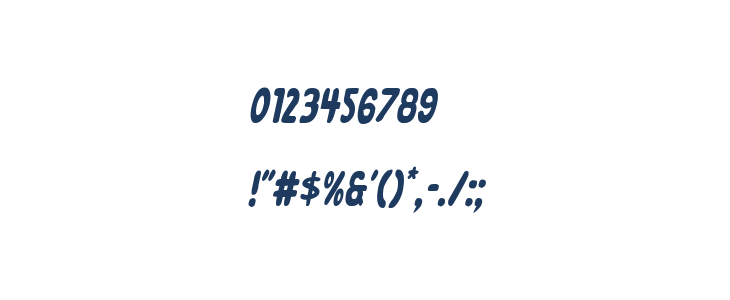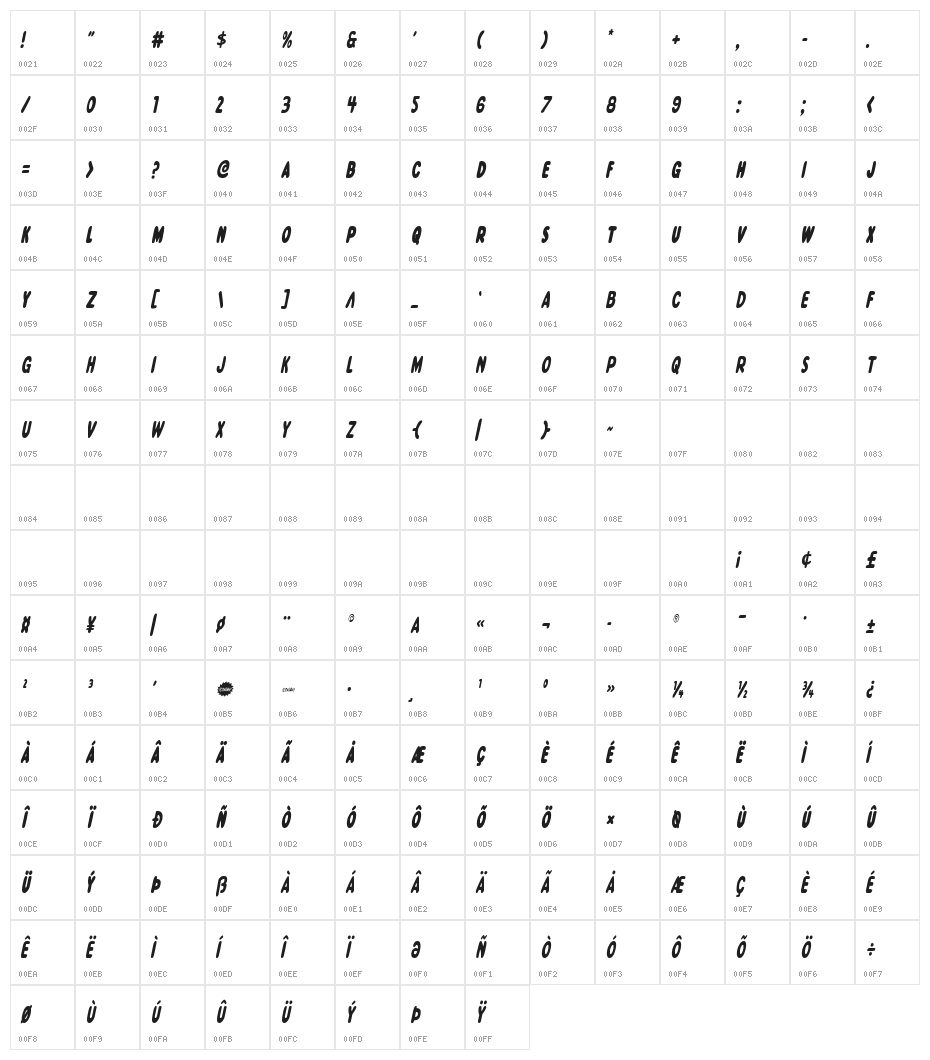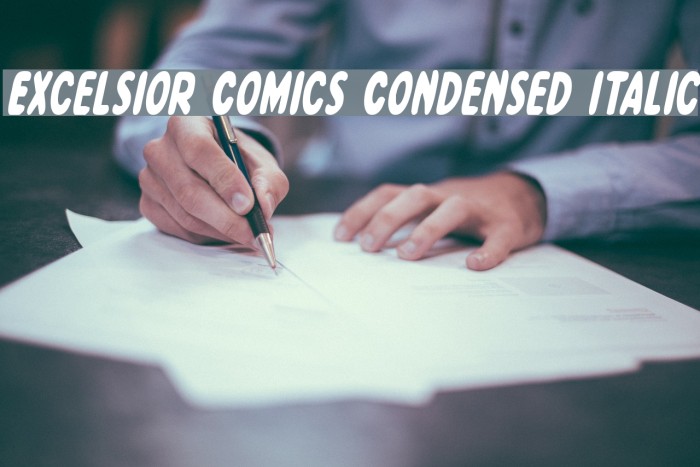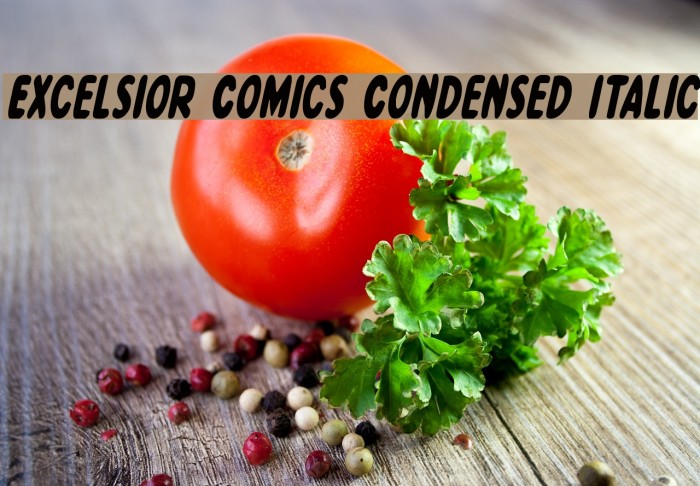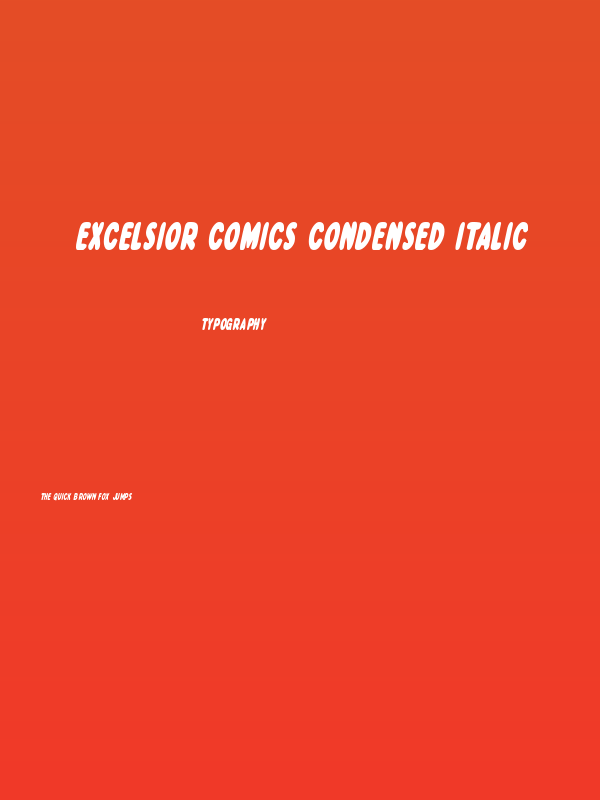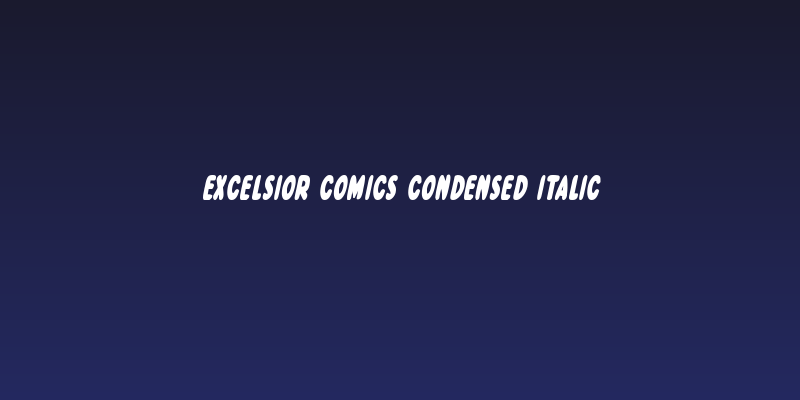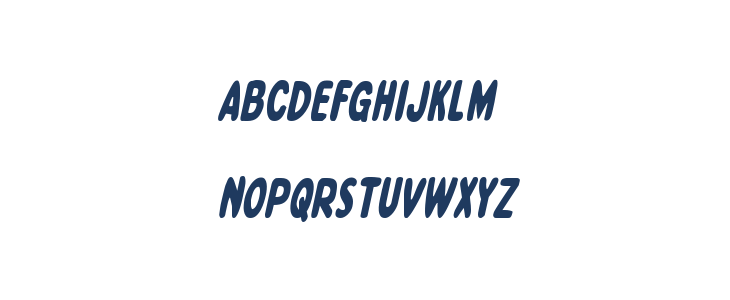
Excelsior Comics Condensed Italic Font
Excelsior Comics Condensed Italic Description
This font features a bold, condensed style with a playful and dynamic appearance. The italic slant adds a sense of movement and energy, making it ideal for attention-grabbing designs. The characters are rounded and smooth, contributing to a friendly and approachable look. The uppercase and lowercase letters maintain a consistent style, with a slight variation in size and shape that adds visual interest. Numbers and special characters are clearly defined, ensuring readability. This font is well-suited for projects that require a lively and engaging typeface.
| Proposed Projects | Ideal for comic book titles, posters, advertisements, and branding that require a lively and engaging typeface. |